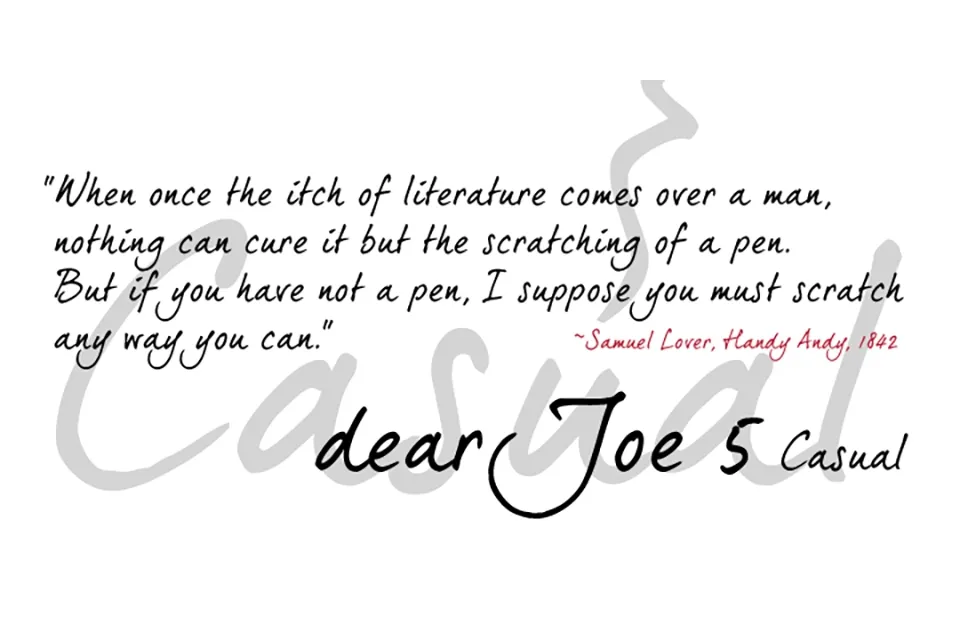
Dear Joe 5 Casual Font
Dear Joe 5 Casual Font is a distinctive script and handwritten typeface designed by JOEBOB graphics. Created as part of the dearJoe font series, this typeface offers a casual, informal style that mimics natural handwriting. The font features 52 defined characters and belongs to the Basic Latin unicode character range. Available as a trial version, it is primarily intended for non-commercial projects and provides a simple, sober aesthetic. Designers can use this font to add a personal, handwritten touch to their projects, with the option to mix it with other versions in the dearJoe series for enhanced typographic variation. Its unique style makes it particularly appealing for creative design work that requires a natural, spontaneous feel.